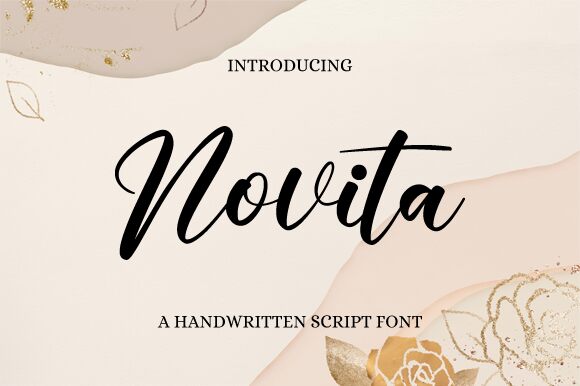
Novita, crafted by Nirmala Creative, embodies the charm of handwritten elegance. Its fluid strokes and graceful curves exude a sense of personal touch and sophistication. The font's dynamic lines and harmonious flow make it visually captivating, while the bold presence ensures it stands out in any design context.
Perfect for branding projects, invitations, logos, and social media graphics, Novita adds a distinctive flair to each word it forms. Its unique aesthetic appeal lies in the balance between casual handwriting and refined artistry, making it versatile for both chic modern designs and timeless classic themes. Whether you're aiming to convey warmth or elegance, Novita seamlessly adapts to enhance your message with its stylish authenticity.